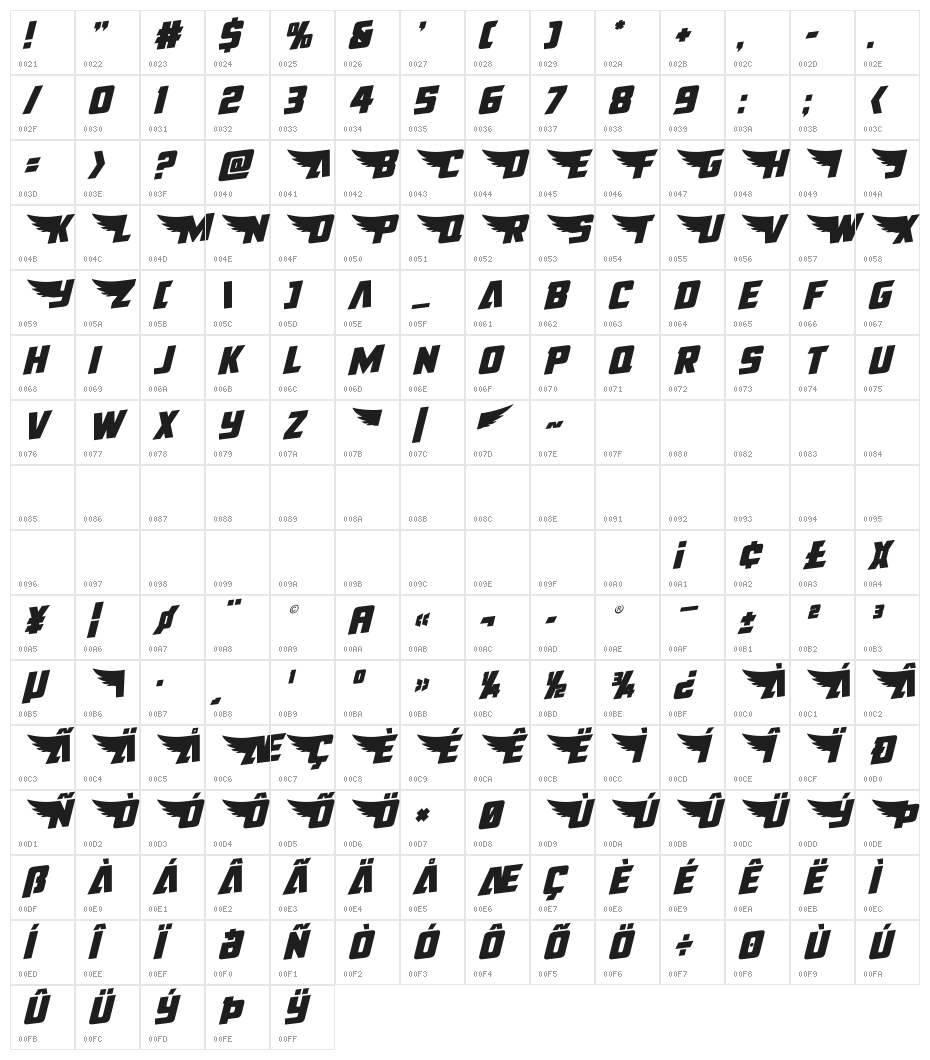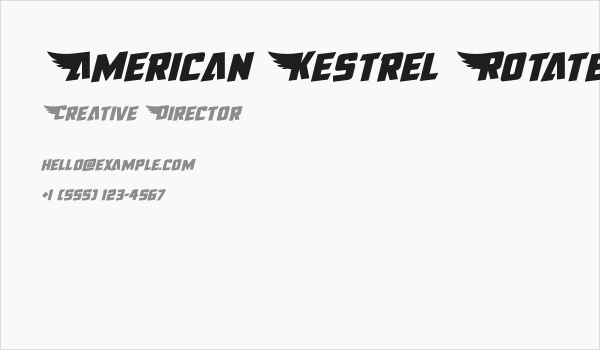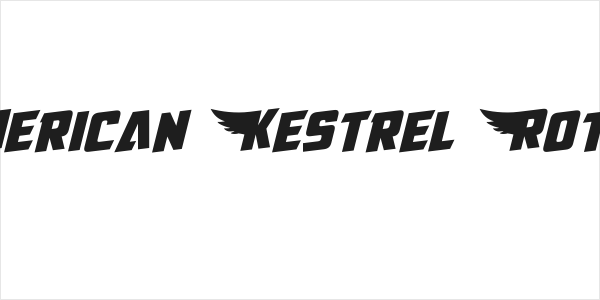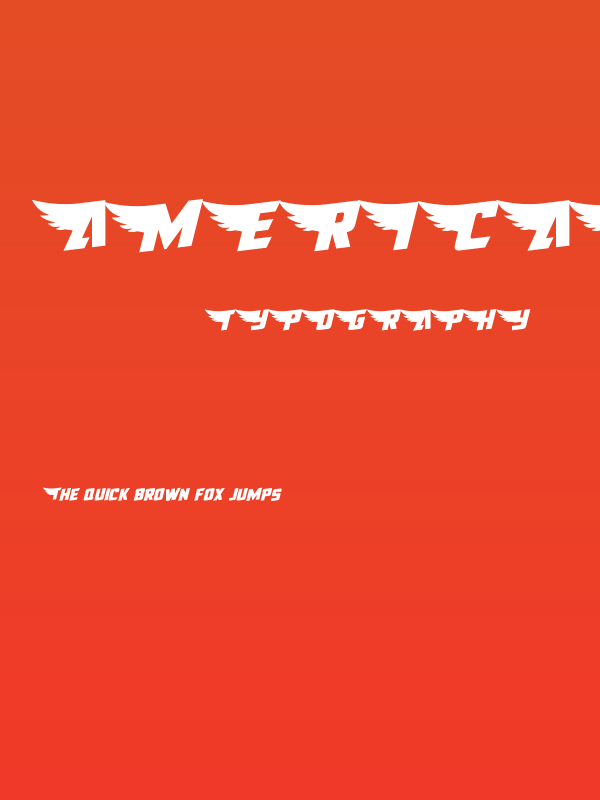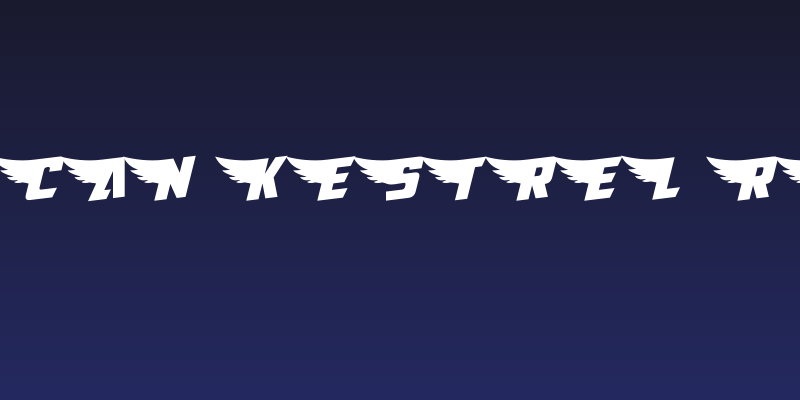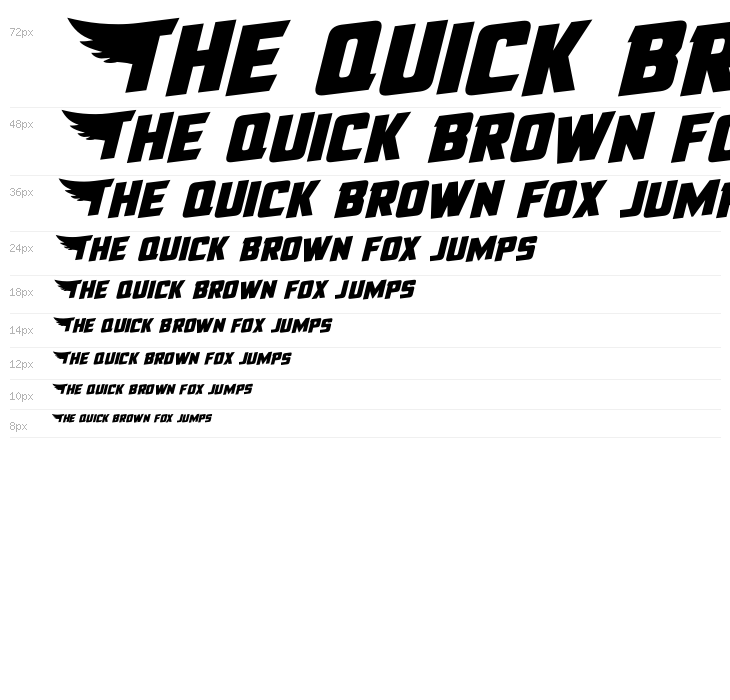
American Kestrel Rotated Font
American Kestrel Rotated Description
This dynamic and bold font features a striking design with sharp angles and a sense of motion, reminiscent of speed and agility. The uppercase letters are particularly impactful, with a slanted orientation that suggests forward movement. The font's unique characteristic is the incorporation of wing-like extensions on certain characters, adding a distinctive flair. The numbers and special characters maintain the same boldness and angularity, ensuring consistency across all elements. This font is ideal for projects that require a sense of energy and modernity.